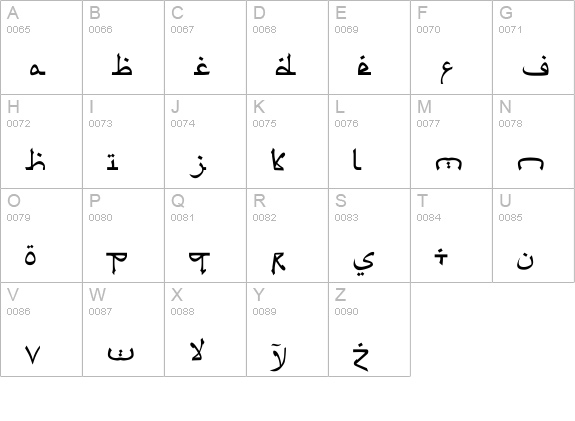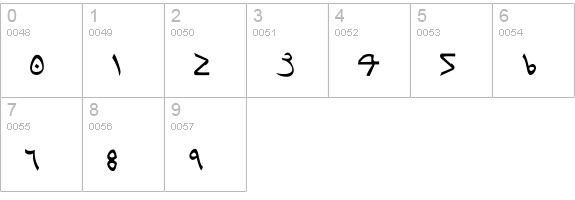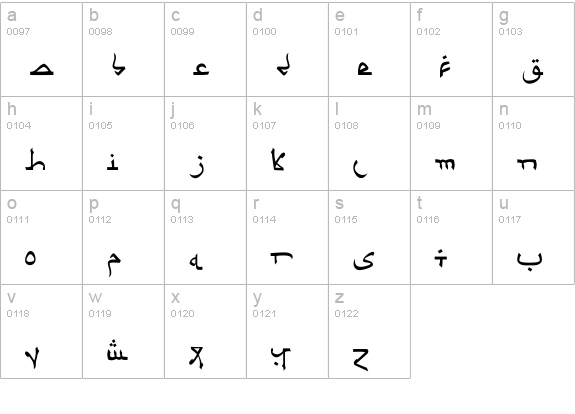
Psuedo Saudi Font Details
Introducing the exquisite Psuedo Saudi font, a captivating typeface that seamlessly blends tradition with modernity. This elegant font is perfect for adding a touch of sophistication to your designs, whether for branding, editorial projects, or social media graphics. With its intricate details and graceful curves, Psuedo Saudi exudes a sense of cultural richness and timeless beauty. The best part? Psuedo Saudi font is available for free download at FontsMarket.com, making it accessible to all designers and creators looking to elevate their work with a touch of Middle Eastern charm. Embrace the beauty of Psuedo Saudi font and bring a touch of regal elegance to your projects today.